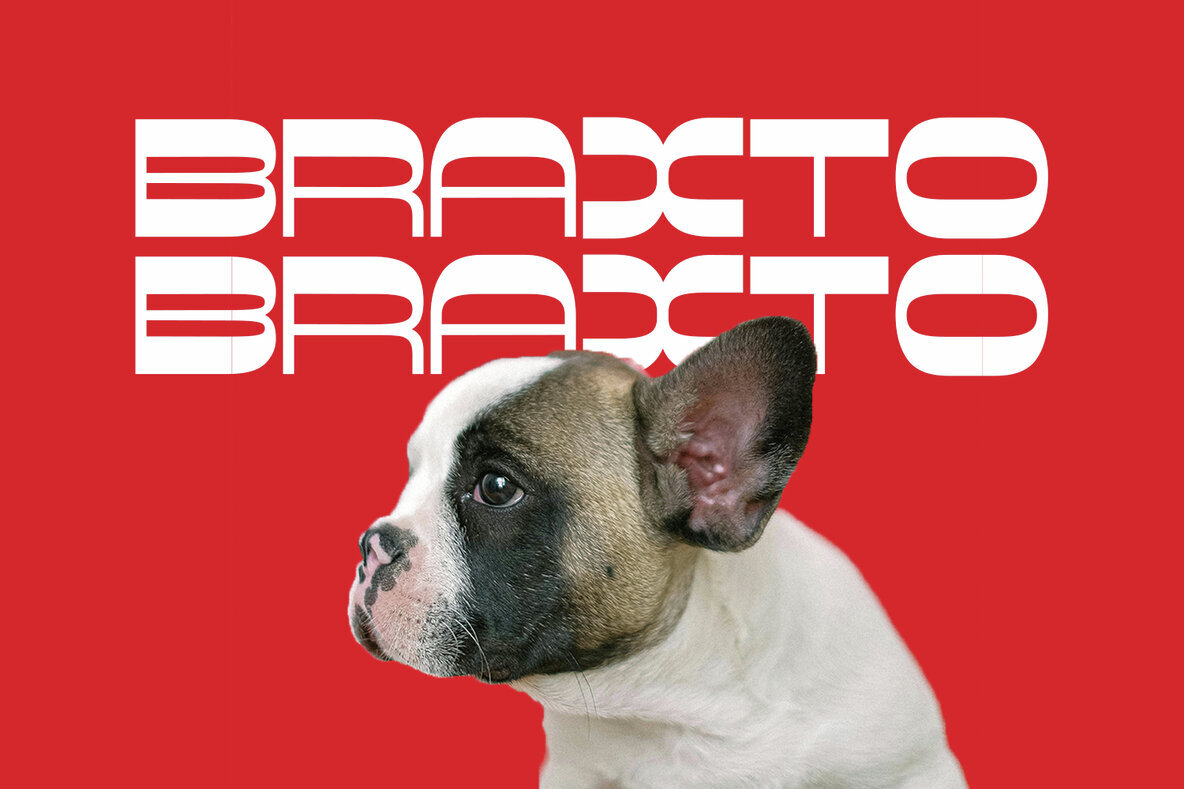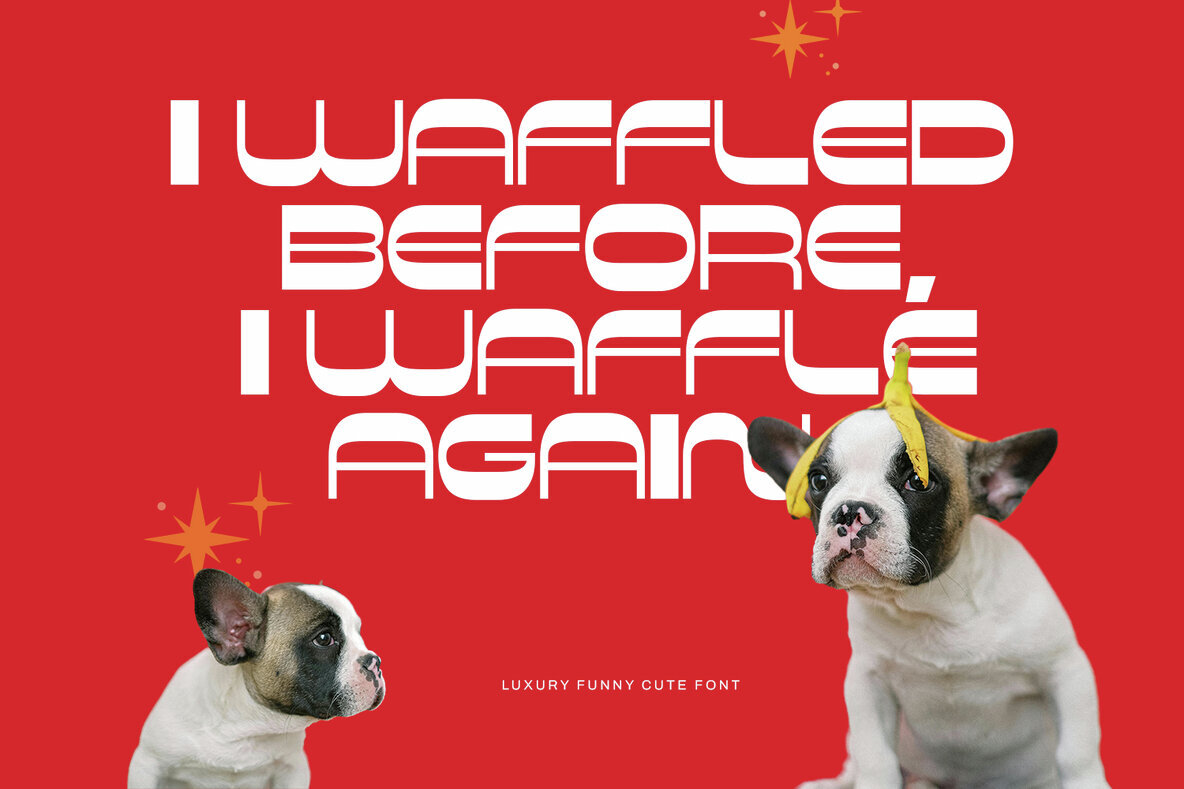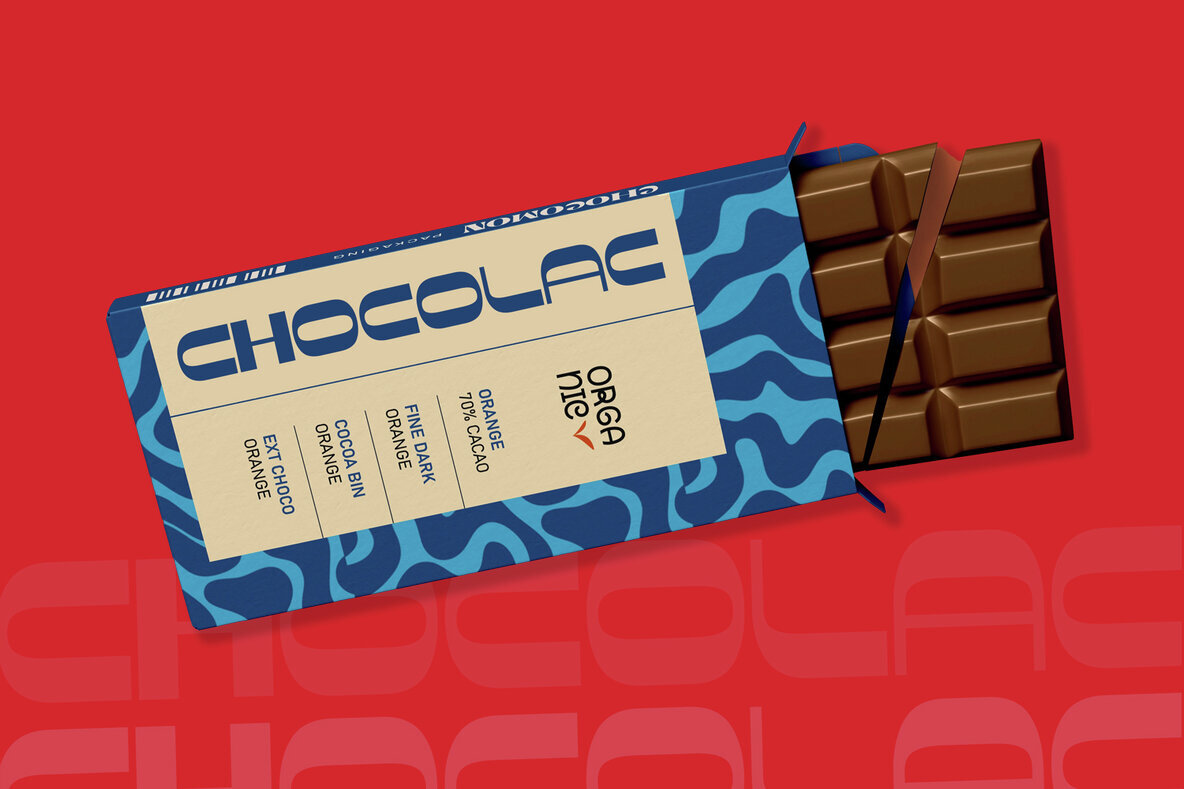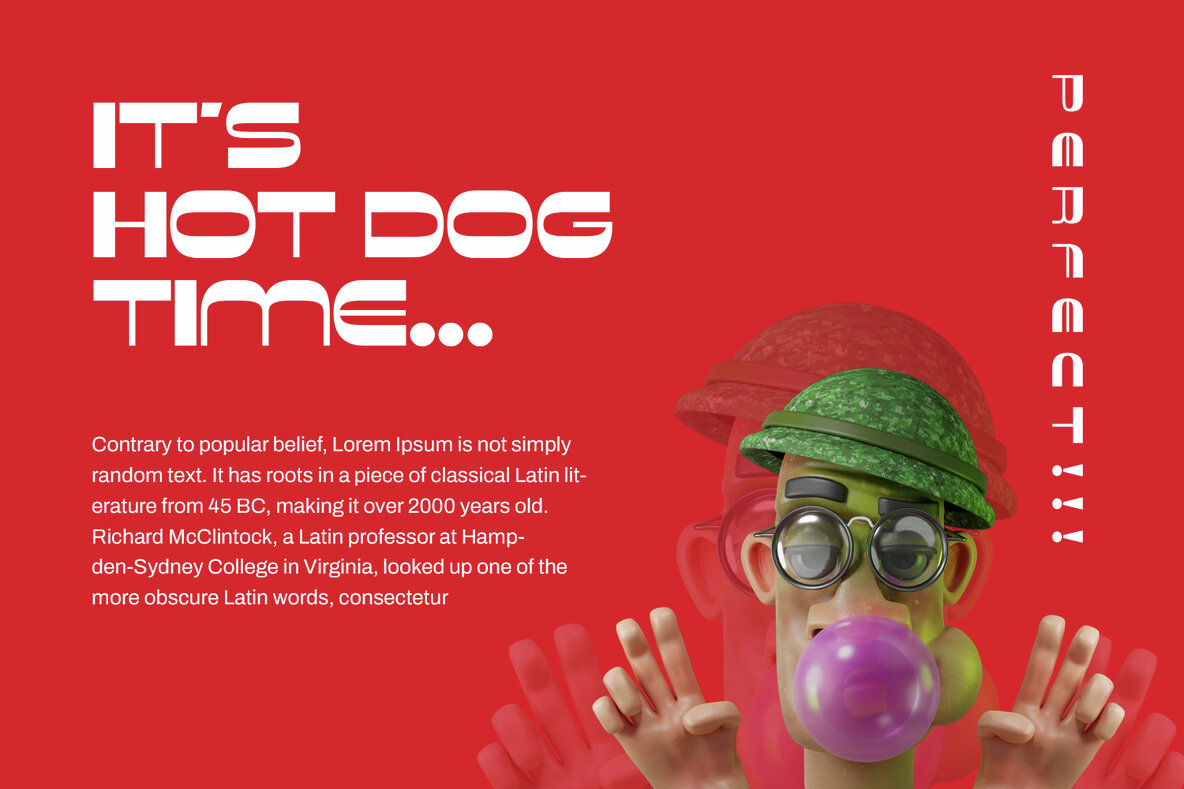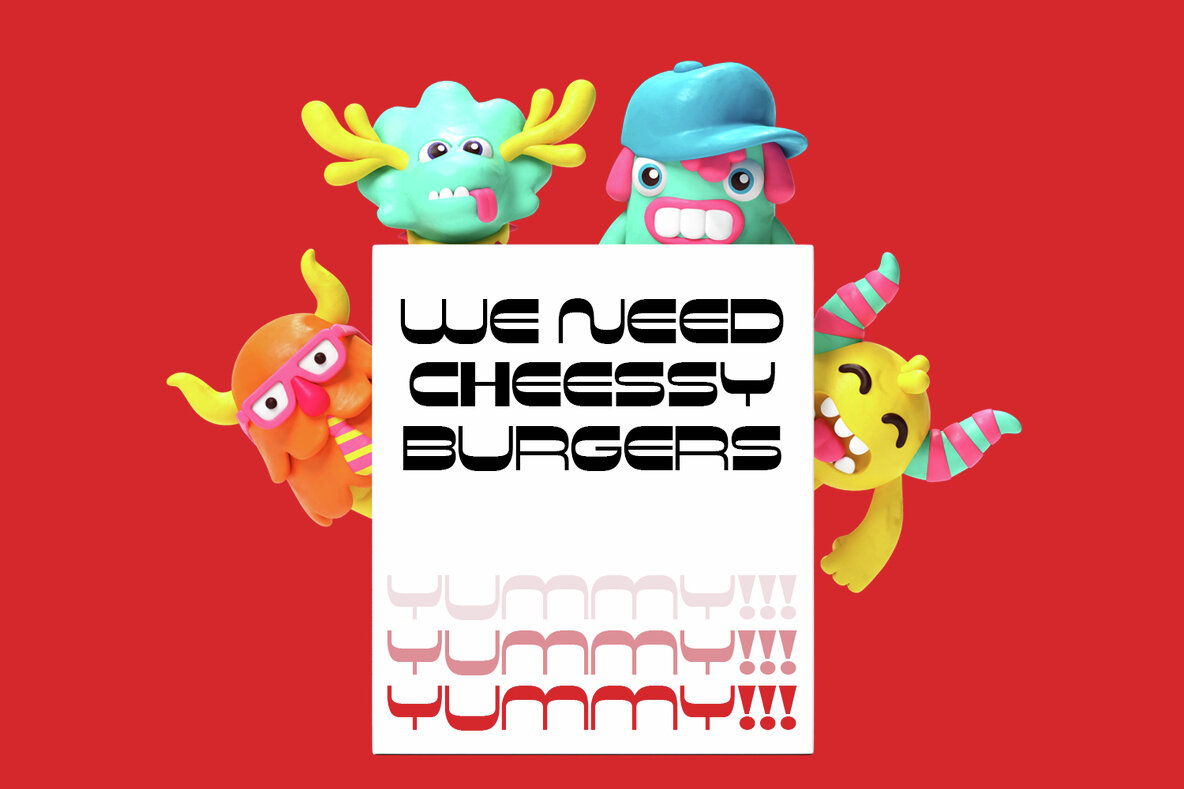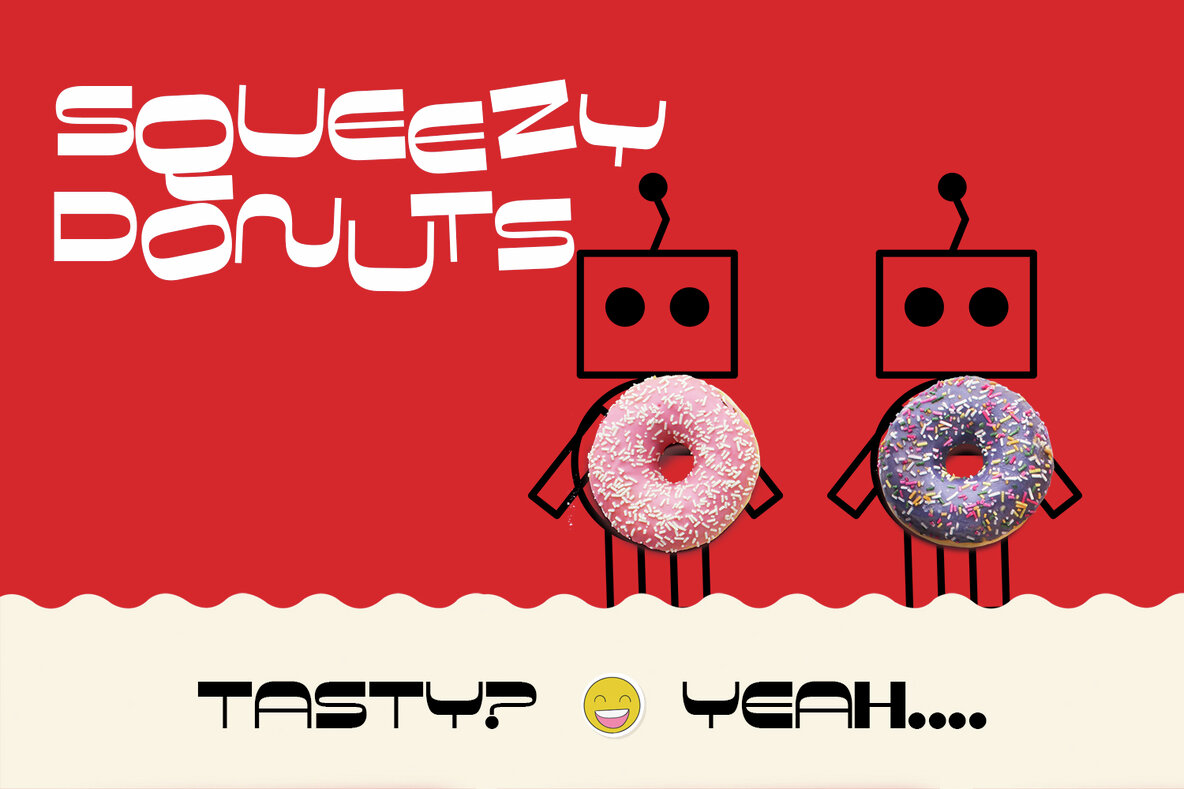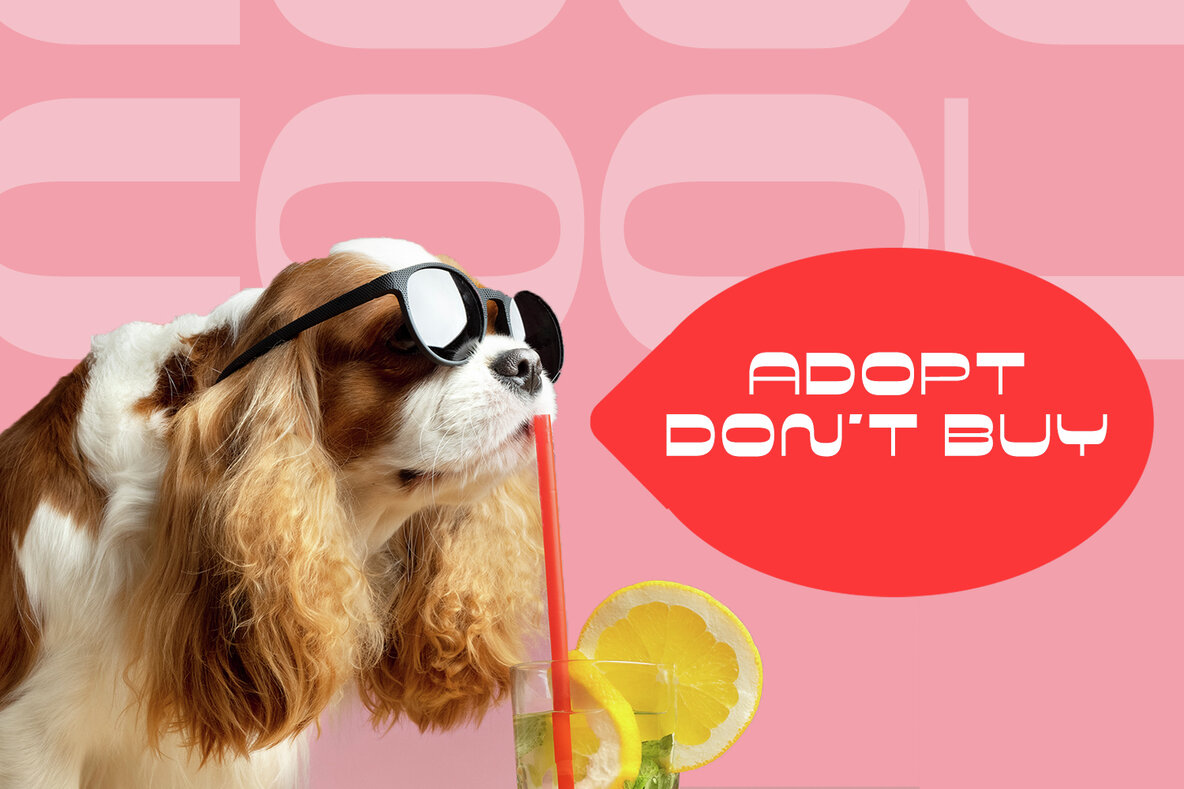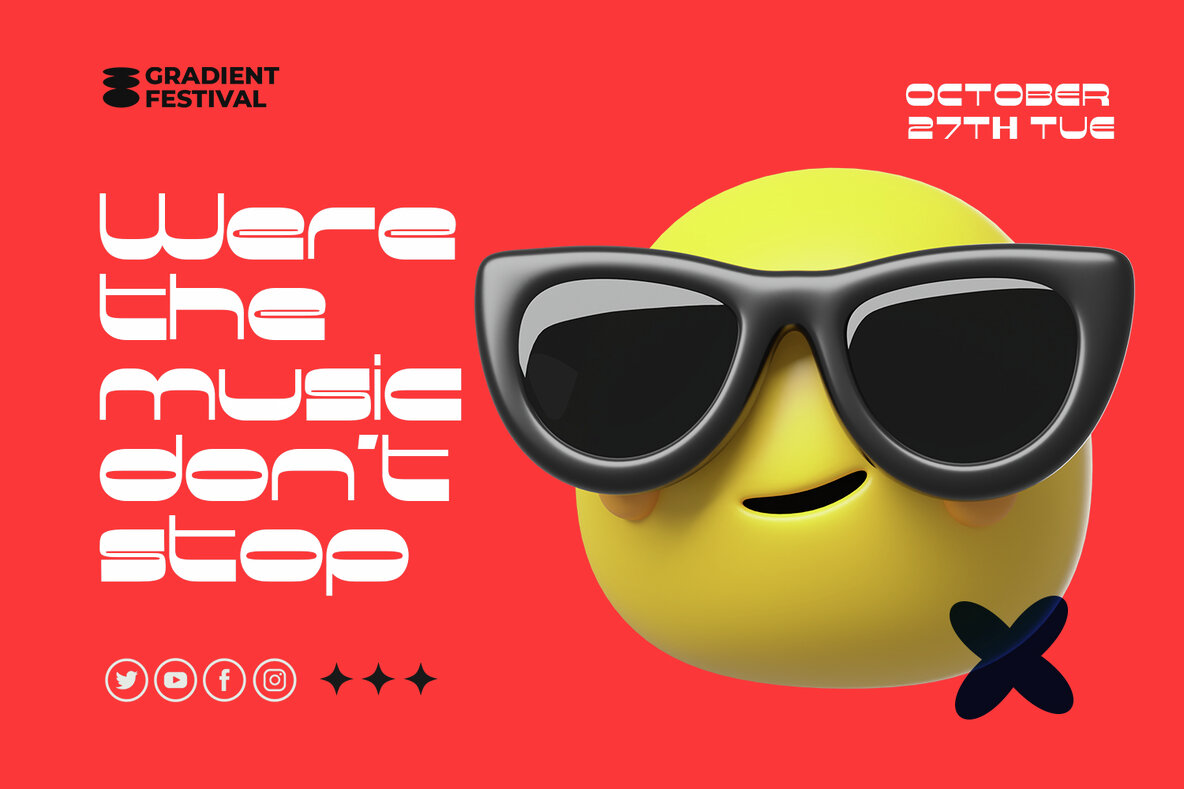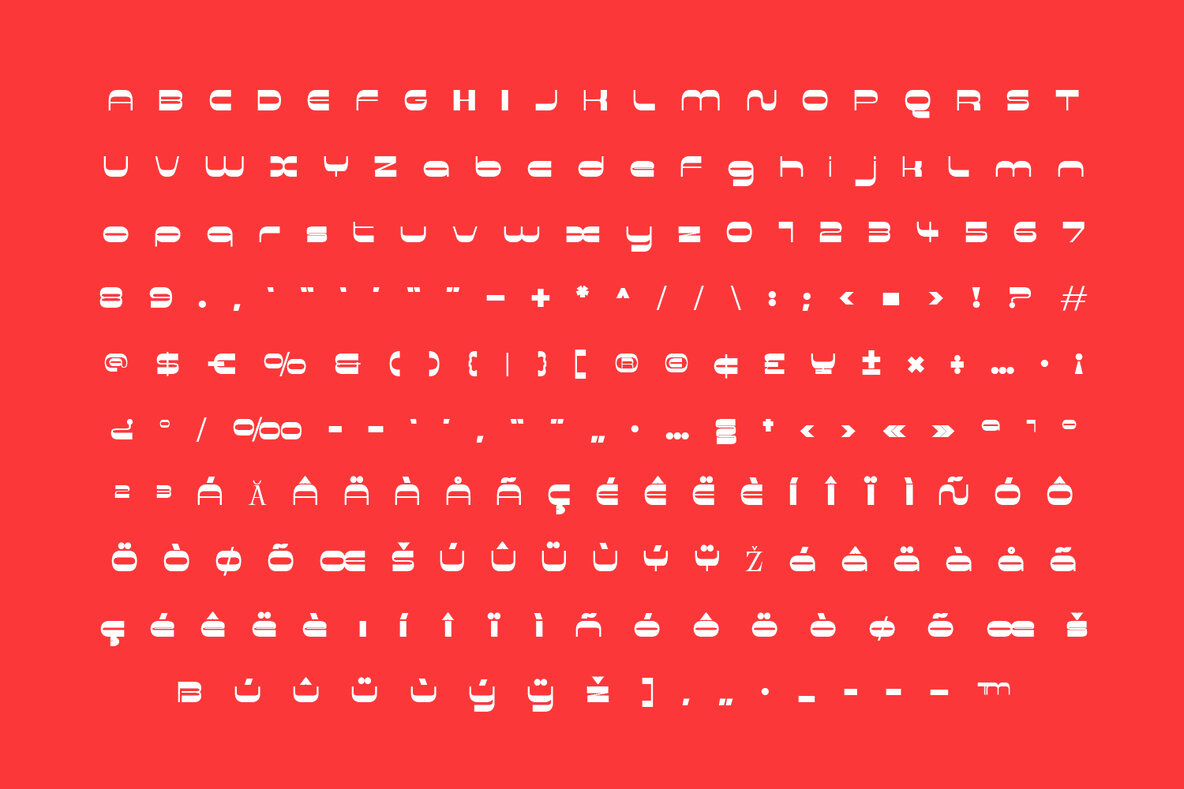
Braxto Display Font
Braxto Display Bold
Breathe life into your creative projects with the Braxto Display font. This playful and vibrant typeface is designed to inject joy and whimsy, making it perfect for eye-catching funny posters, cheerful banners, lively party invitations, social media graphics, and engaging kids’ designs. Its modern appeal and delightful charm effortlessly grab attention, allowing you to convey a sense of fun and friendliness. Featuring bold curves and quirky shapes, Braxto exudes warmth and creativity, ideal for brands and creators seeking to project approachability. Compatible with all major platforms and web browsers, this unique typeface ensures your text remains visually striking, whether for print or digital use.Braxto Display Font